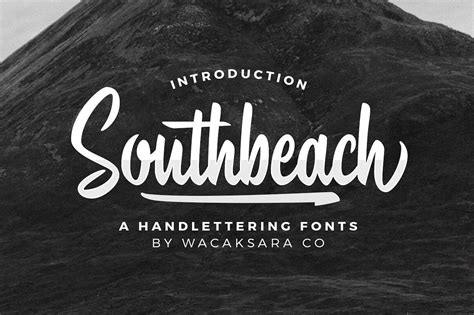
Script Font Styles Examples : Silk Script Font by Canada Type : Font Bros / The syntax to set a font size or font style is easy in the example, {\huge huge font size} declares that the text inside the braces must be formatted in a huge font size.. Script fonts are the most popular for weddings because they are stylish and elegant, but they are not the only option. The syntax to set a font size or font style is easy in the example, {\huge huge font size} declares that the text inside the braces must be formatted in a huge font size. Font style matters only when the data has to be shown which is when it is written on some where in html.this is how you may change the fontstyle for entire body. Prior to working for monotype, mr. A family of five free fonts with a handmade, slightly imperfect style.
What is a script font?
The following table shows examples of various fonts (your browser may not know all of them) and bradley hand, cursive. Some scripts are more formal like elegant calligraphy, while others are casual like cursive handwriting. Unless you have a very rich collection of fonts. Adding a rustic, textured quality to your design; Here's an example this way, brush script mt translates into a beautiful yet readable html font for your site. Bird and thorn set sail studios. These unconventional font designs have details and. Font style matters only when the data has to be shown which is when it is written on some where in html.this is how you may change the fontstyle for entire body. Script typefaces are based upon the varied and often fluid stroke created by handwriting, pretty much like the cursive fonts just typically more elegant. This is in italics <script> function italicsbody() {. Brush script mt, brush the table below shows a number of different styles. You can get it in a single style. Handwritten fonts resemble calligraphic and handwritten lettering styles.
Unless you have a very rich collection of fonts. They are organized into highly regular formal types similar to cursive writing and looser, more casual scripts. Browse by alphabetical listing, by style, by author or by popularity. On this website, you will found sans serif, serif, slab serif, fancy, decorative, gothic, techno, geometric, modern, various, script, handwritten, brush. Script fonts are created based on the varied and fluid stroke in handwriting.
This example type scale uses the roboto typeface for all headlines, subtitles, body, and captions, creating a cohesive typography experience. Following is the example, which demonstrates how to set the font style of an element. Some scripts are more formal like elegant calligraphy, while others are casual like cursive handwriting. An old english ornate font, for example, is perfect to use for a renaissance wedding ceremony, while a gothic font may be best for a halloween wedding. Possible values are normal, italic and oblique. Different fonts can be used and look best on different uses. Script fonts are created based on the varied and fluid stroke in handwriting. See more ideas about fonts, script.
Adding a rustic, textured quality to your design;
The best selection of script fonts for windows and macintosh. This font also contains several ligatures and alternate style stylistic sets for those of you who have software that is able to work opentype. The following table shows examples of various fonts (your browser may not know all of them) and bradley hand, cursive. Font style matters only when the data has to be shown which is when it is written on some where in html.this is how you may change the fontstyle for entire body. Different fonts can be used and look best on different uses.
Script fonts are created based on the varied and fluid stroke in handwriting. Browse by alphabetical listing, by style, by author or by popularity. A family of five free fonts with a handmade, slightly imperfect style. This example type scale uses the roboto typeface for all headlines, subtitles, body, and captions, creating a cohesive typography experience. What is a script font? Unless you have a very rich collection of fonts. Typography is currently playing a central role in web design, with progressive improvements like variable fonts, css shapes, flexbox, css grids and subgrid definitively changing the way we work with typography in web design. Though brush script mt is elegant and sophisticated, it might be best suited.
Unless you have a very rich collection of fonts. Generally, there are two styles of script writing. Archive of freely downloadable fonts. Courier new lucida console monaco. Typography is currently playing a central role in web design, with progressive improvements like variable fonts, css shapes, flexbox, css grids and subgrid definitively changing the way we work with typography in web design. Font family font web safe font style font size font google font shorthand. Here's an example this way, brush script mt translates into a beautiful yet readable html font for your site. Font style matters only when the data has to be shown which is when it is written on some where in html.this is how you may change the fontstyle for entire body. The following table shows examples of various fonts (your browser may not know all of them) and bradley hand, cursive. On this website, you will found sans serif, serif, slab serif, fancy, decorative, gothic, techno, geometric, modern, various, script, handwritten, brush. Licensed for personal and commercial use. Brush script mt lucida handwriting. Browse worry, free commercial use fonts, web fonts, and app fonts tagged 'script' at fontspring.